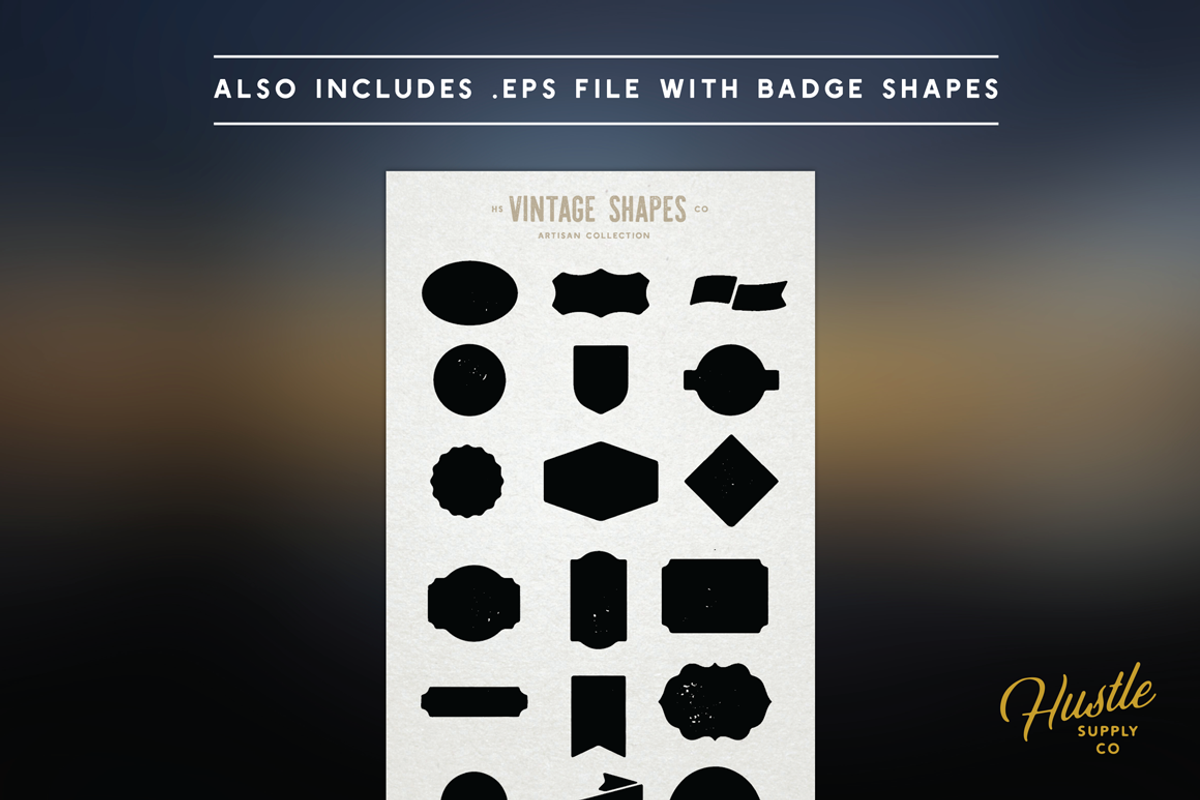
The Artisan Collection
This is essentially 6 brand new products being released together instead of separately.
11 Fonts, 16 Premium Logo Templates, 20 Vintage Shapes
After months of planning and execution, The Artisan Collection is available for sale. The Artisan Collection was created with careful consideration for usability and versatility. I wanted to create multiple type families that could work together seamlessly.
So what does the Artisan Collection Include?
- Barley Script - A script typeface with lots of alternate swashy characters. (Clean, Textured)
- Holtzman - A condensed Small Caps font. (Clean, Rounded, Textured)
- Heinberg - A sans serif typeface. (Clean, Rounded, Textured)
- Trade Supply - A serif typeface with Condensed Capital Letters. (Clean, Rounded, Textured)
Each typeface has a Textured Version, saving you 1 step. The texture is consistent across the board on each typeface allowing them to pair very well with eachother.
I was going to stop there, but I decided to create 16 Logo Templates as well. This is great for understanding how the typefaces were intended to be used with each other.
Vintage Shapes
& to top it off, I created a file dedicated to Vintage Badge Shapes, giving you more options for the Logo templates or just for general use.